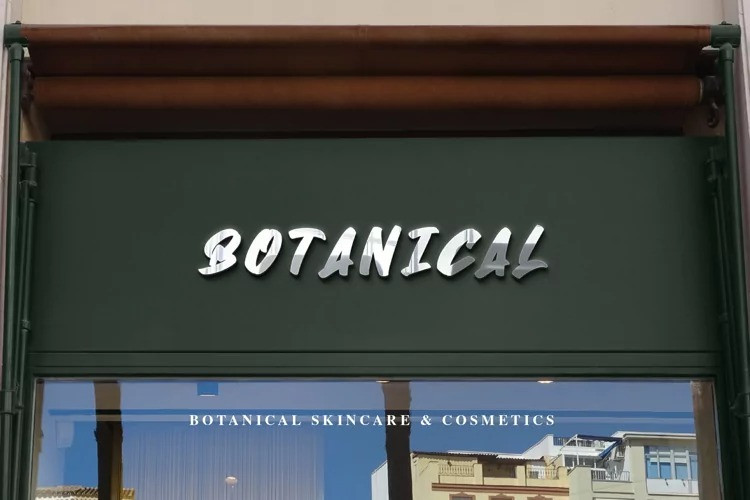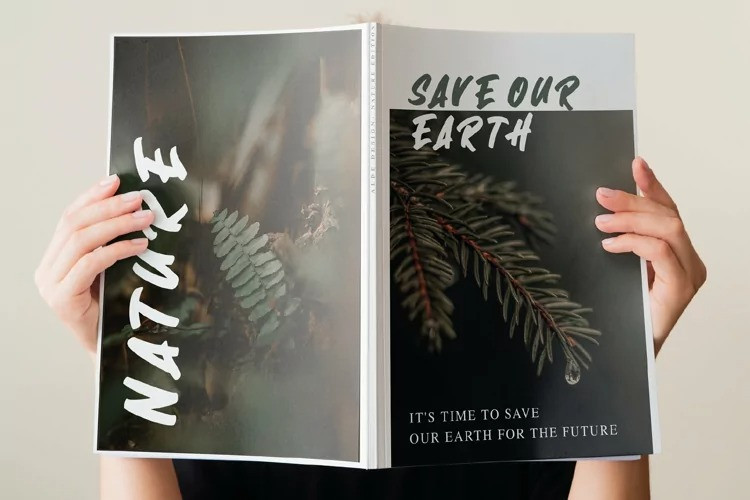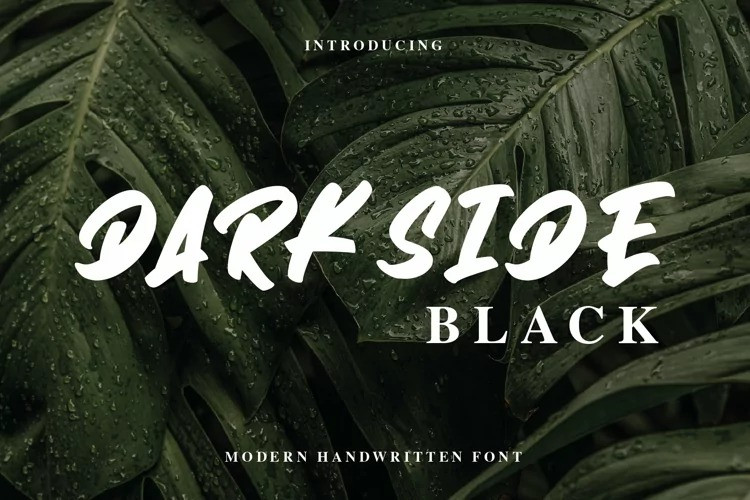
Darkside Black Brush Font
Darkside is a flowing handwritten font, described by an elegant touch, perfect for your favorite projects. This font is PUA encoded which means you can access all glyphs and swashes with ease!